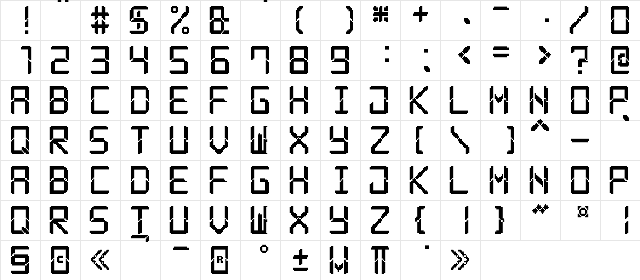
Modern LCD-7 Regular
Design Context for Modern LCD-7 Typeface
Modern LCD-7 takes a measured approach to typography — its balanced proportions and neutral character make it a reliable workhorse for both digital and print work.